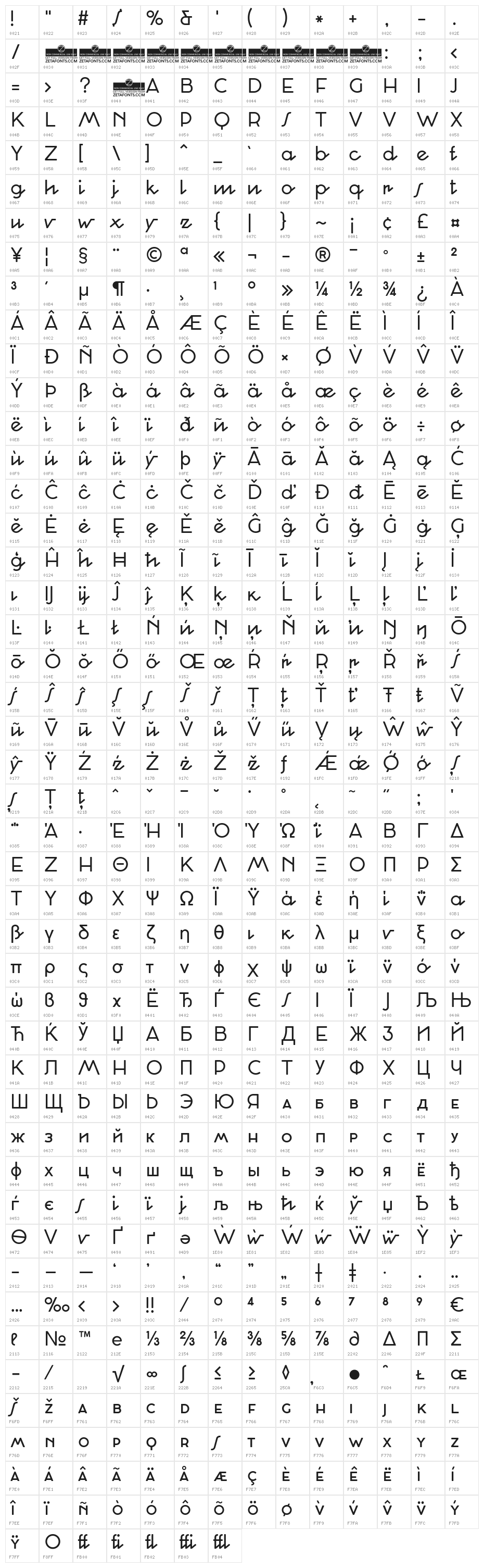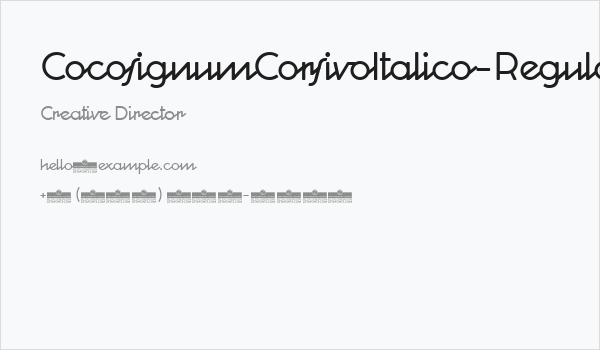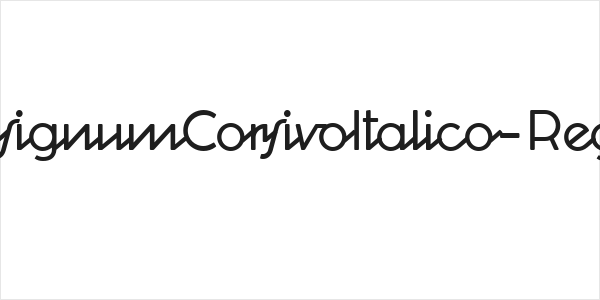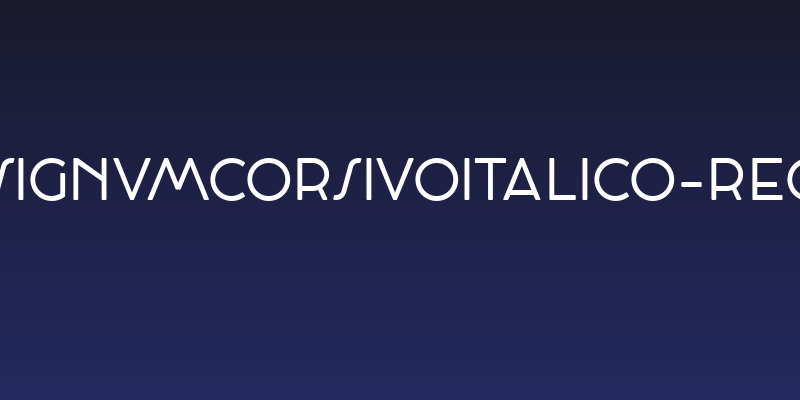
CocosignumCorsivoItalico-Regular Font
CocosignumCorsivoItalico-Regular Description
This font presents a unique blend of modern and classic styles, characterized by its clean lines and geometric shapes. The uppercase letters are bold and structured, with a slight slant that adds a dynamic feel. The lowercase letters exhibit a cursive, flowing style, creating a contrast with the uppercase. The numerals and special characters maintain the geometric theme, ensuring consistency across the font. The overall appearance is sleek and professional, making it suitable for a variety of design applications.
| Proposed Projects | Ideal for branding, advertising, and editorial design projects where a modern yet classic look is desired. |